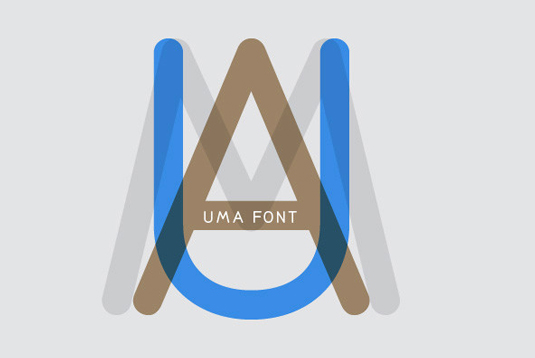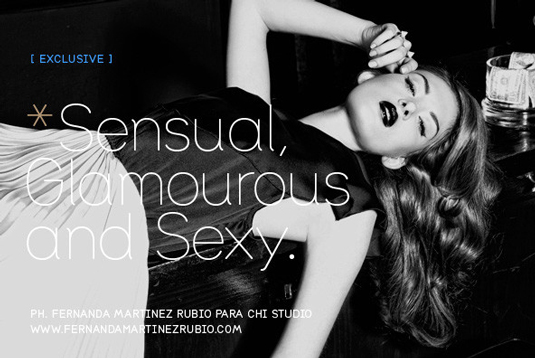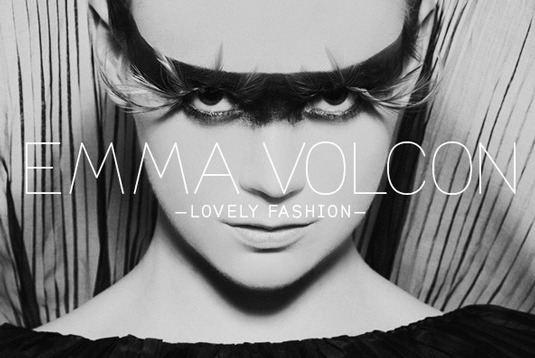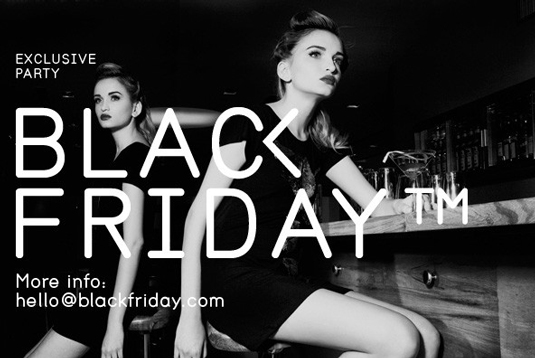
Font of the day: Uma
Every day we showcase the best fonts on the web. Today it's Uma by Ariel Di Lisio and Alejandro Paul.
Uma by Ariel Di Lisio and Alejandro Paul
Today's typeface of choice is Uma, created by designers Ariel Di Lisio and Alejandro Paul. A contemporary design, Uma is elegant and modern, ideal for use in magazines, brochures, flyers and more.